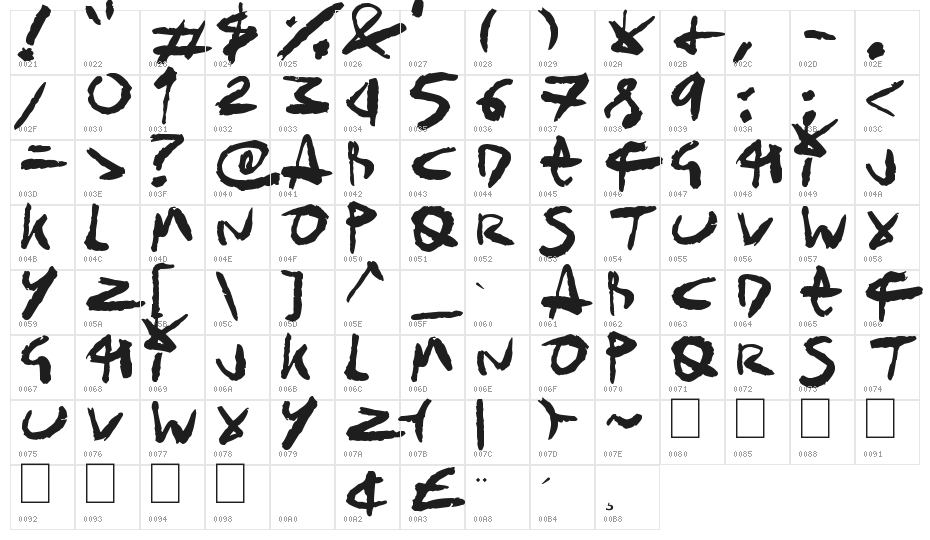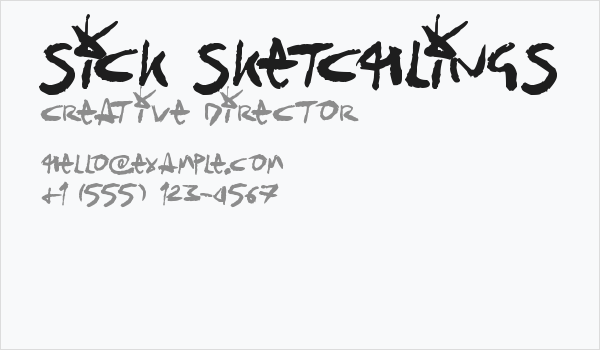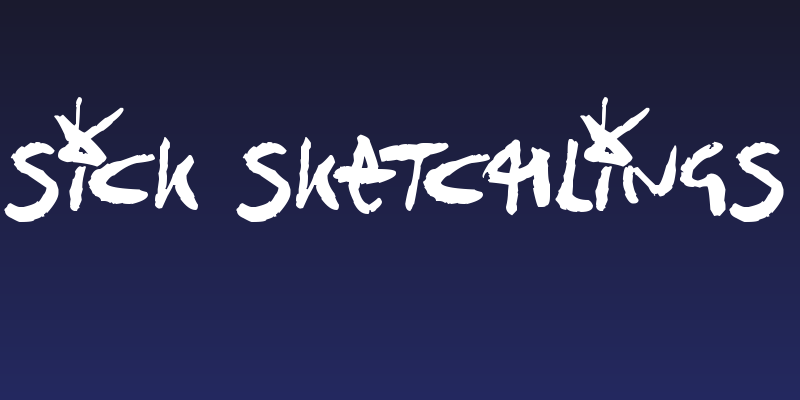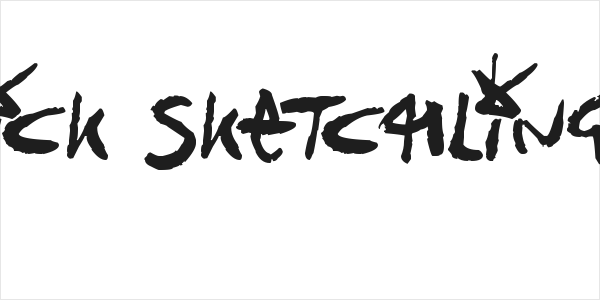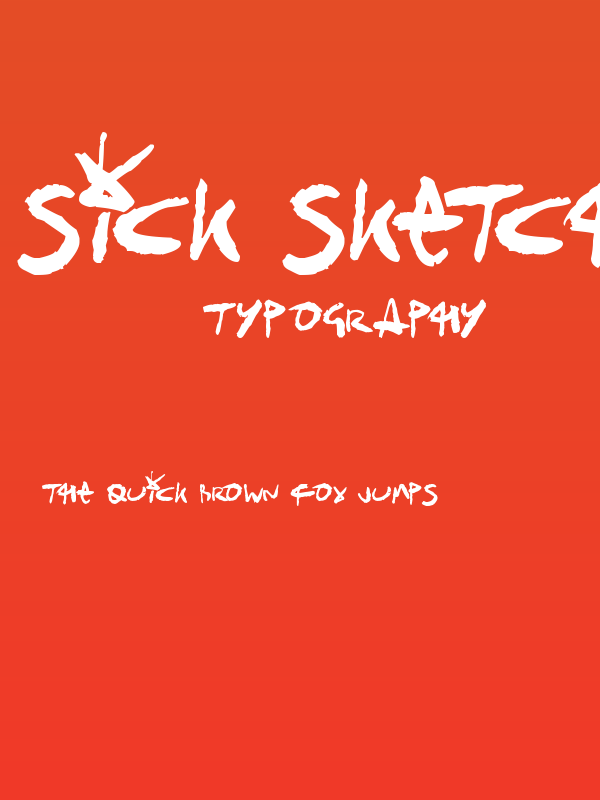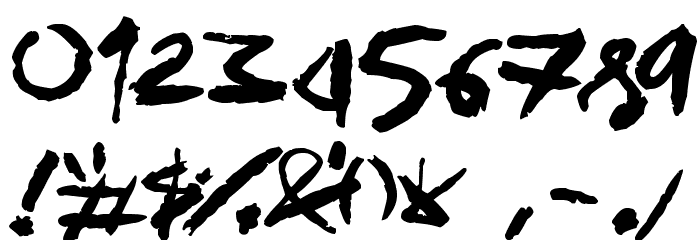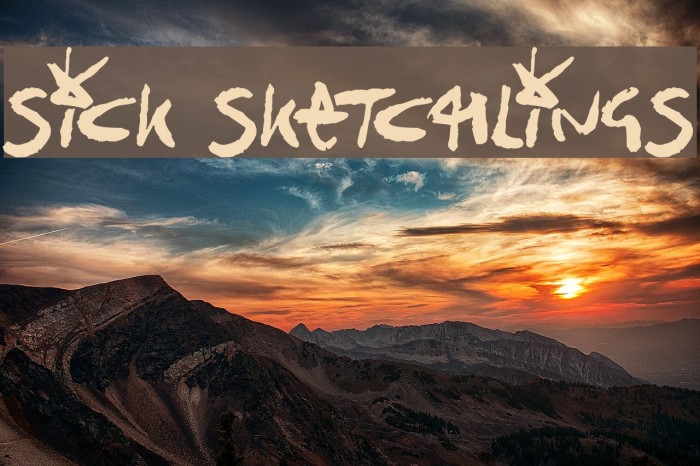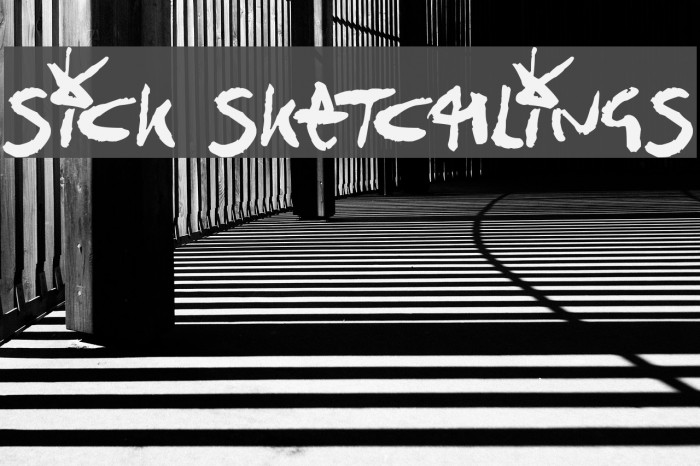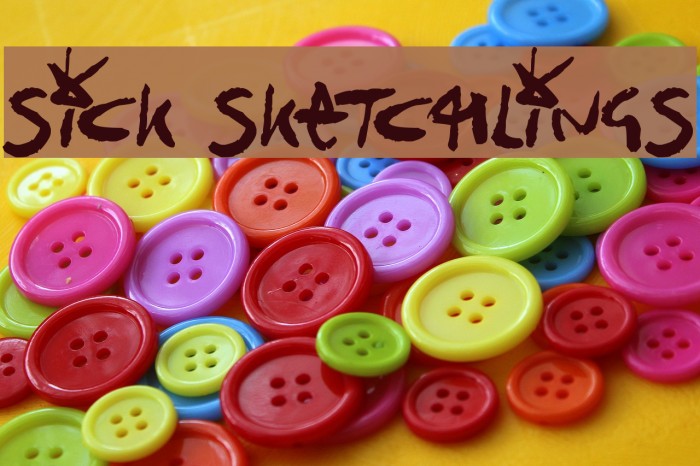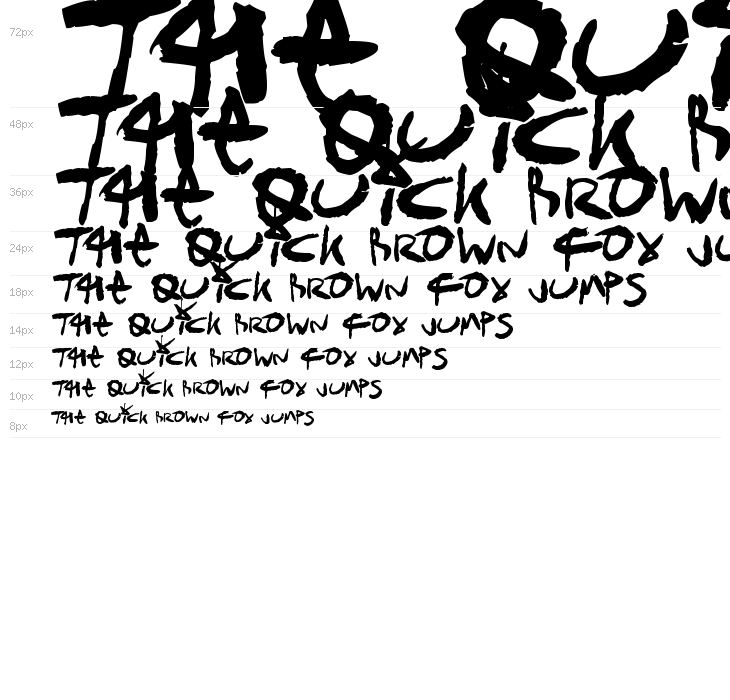
Sick Sketchlings Font
Sick Sketchlings Description
This font exudes a raw, expressive energy with its bold, hand-drawn appearance. Each character is crafted with a rough, brush-like texture, giving it a dynamic and edgy feel. The letters are irregular in shape, with varying stroke widths that add to the font's sketch-like quality. The uppercase and lowercase letters maintain a consistent style, while the numbers and special characters integrate seamlessly, enhancing the overall aesthetic. This font is perfect for projects that require a touch of creativity and spontaneity, making it ideal for artistic and unconventional designs.
| Use Case | Logos, Headlines, Artistic designs |
| Proposed Projects | Ideal for album covers, graffiti art, posters, and creative branding projects. |